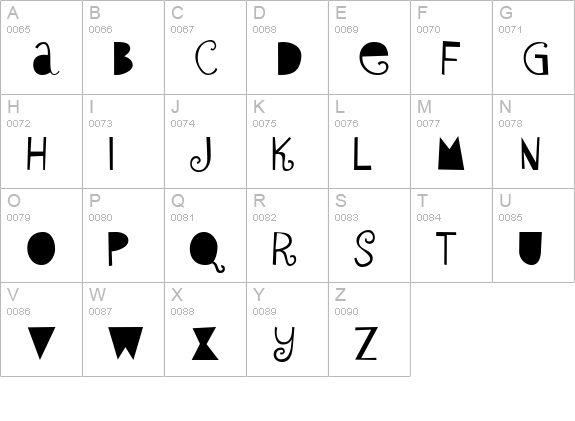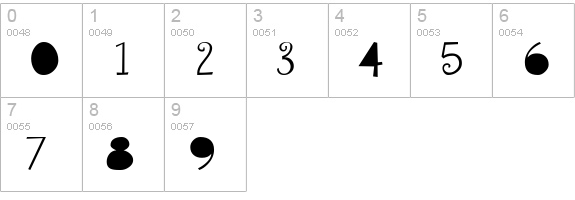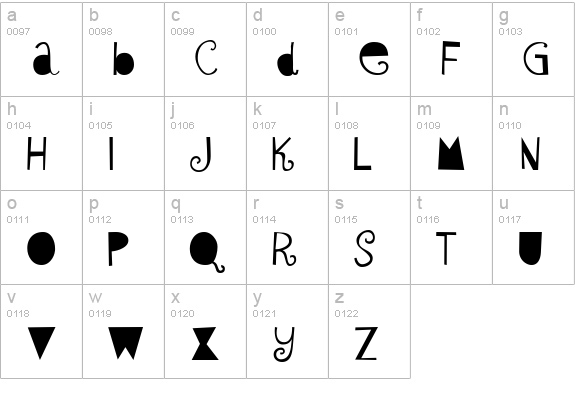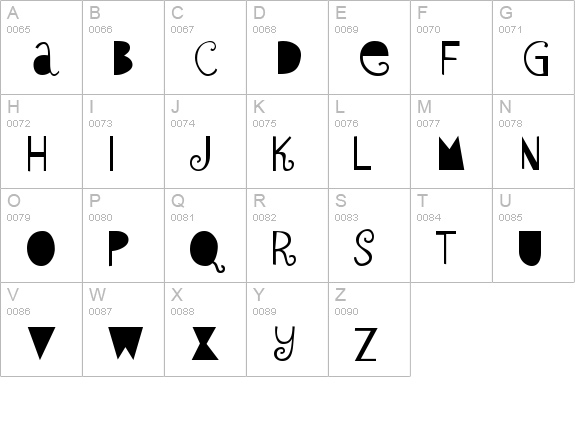
Sybil Green Font Details
Sybil Green font is a modern and stylish typeface that exudes elegance and sophistication. Its sleek lines and unique design make it perfect for a wide range of creative projects, from branding to editorial design. With its smooth curves and clean aesthetic, Sybil Green font adds a touch of class to any visual composition. What sets Sybil Green font apart is not only its striking appearance but also the fact that it is available for free. That's right, you can download this exquisite font at FontsMarket.com without spending a dime. So whether you're a designer looking to elevate your work or a business seeking a fresh new look, Sybil Green font is the perfect choice. Download it today and let its beauty enhance your designs!